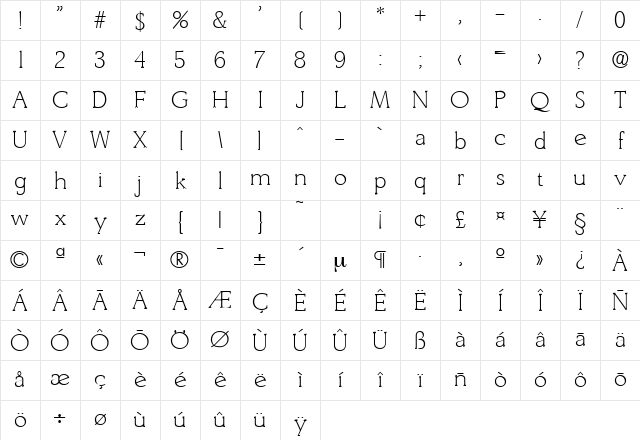
Derringer-Serial-ExtraLight Regular
Design Context for Derringer-Serial-ExtraLight
Derringer-Serial-ExtraLight is a composed and adaptable typeface that performs quietly and consistently across a wide range of design contexts. Its slender proportions lend an understated elegance to any composition.